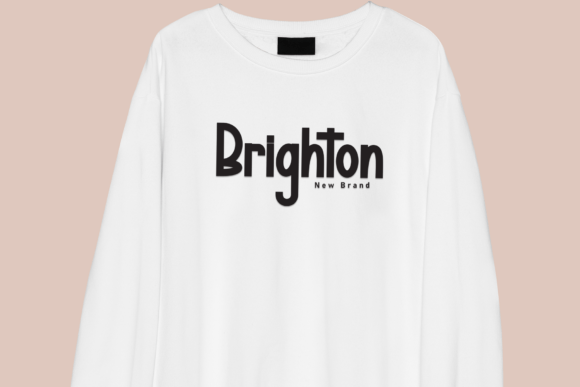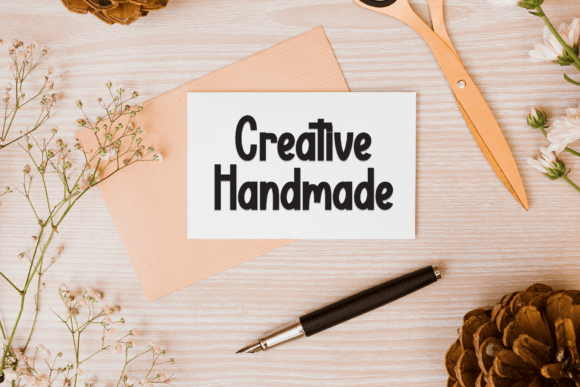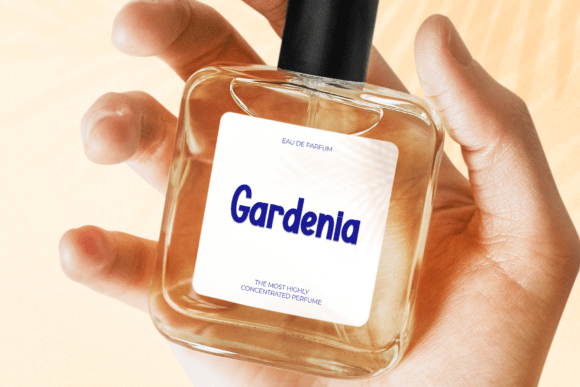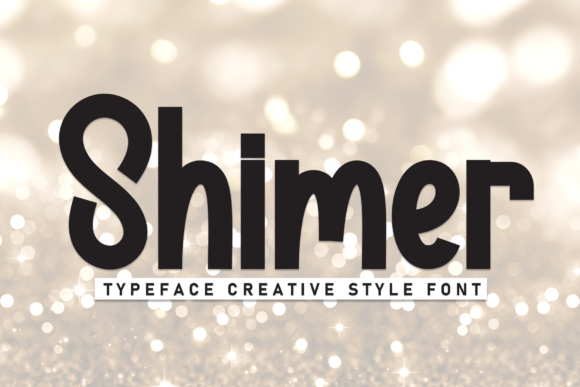
Introduction to Shimer Font
Embark on an artistic adventure with this intriguingly crafted display font, bursting with a vibrant and enticing essence.
Overflowing with charisma, and enriched by a playful, carefree ambiance, this font is the ideal choice for creating captivating wedding invites or emotive greeting cards Radiating joy, it harmonizes creativity and warmth, leaving an enduring impact on all who experience it.